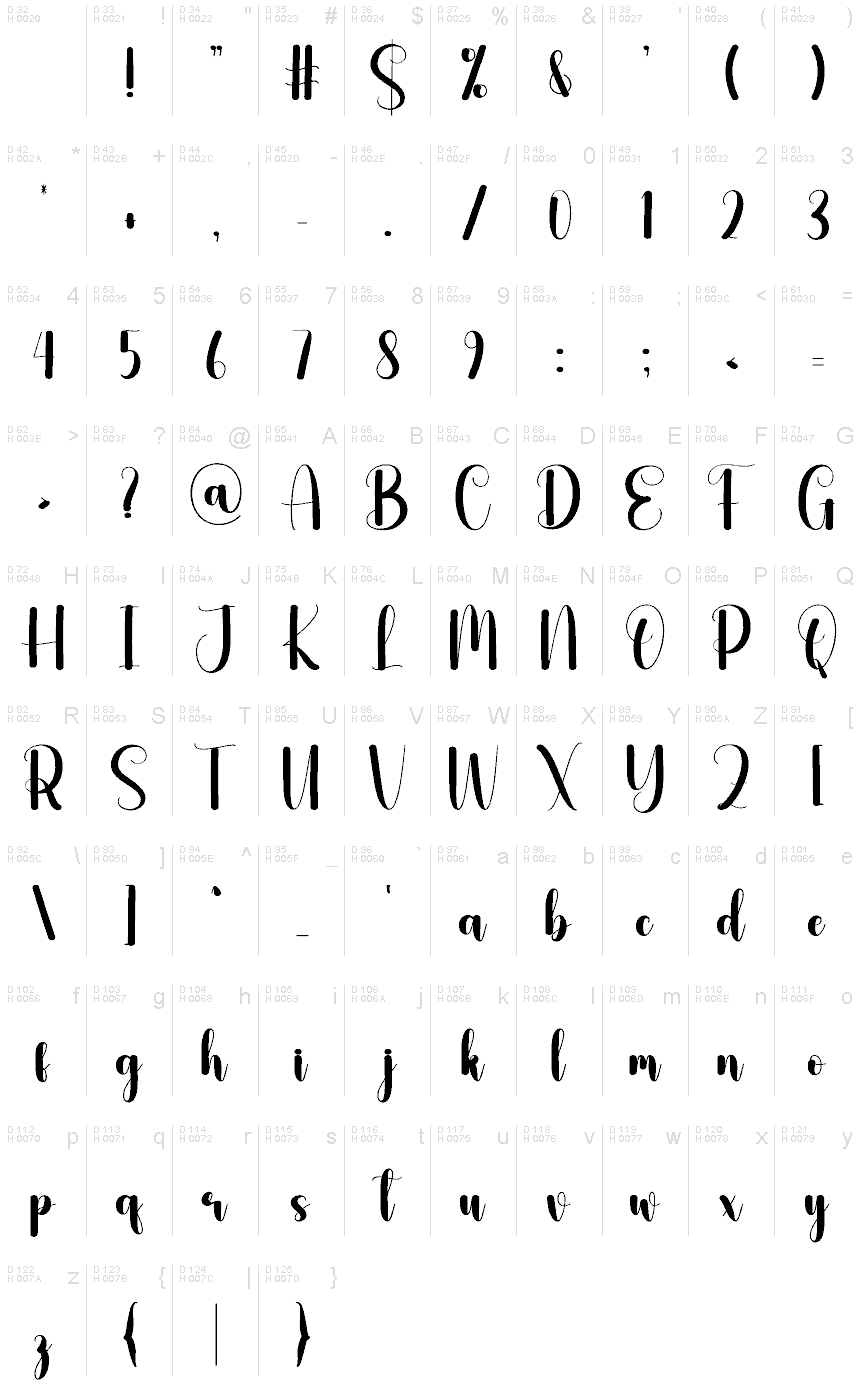
Garments
Garments font by Andi Moz is a free calligraphy font with an elegant and expressive style. The modern script letters immediately catch attention thanks to their high contrast strokes and swashes which flow in all directions. It’s the beauty that occurs within the imperfection of the constantly changing angles and seamless connections.
As a natural handwritten font, Garments is perfectly suitable for greeting cards, invitations, various imagery packages, headlines, advertising materials, editorial projects, quotes posters or inspirational messages in general. Other use cases would include photography signatures as well as apparel design branding.